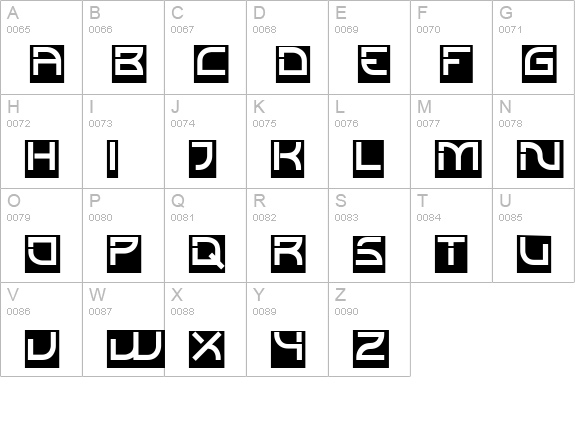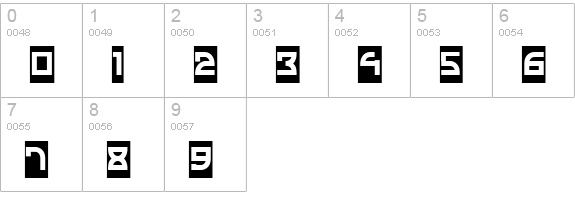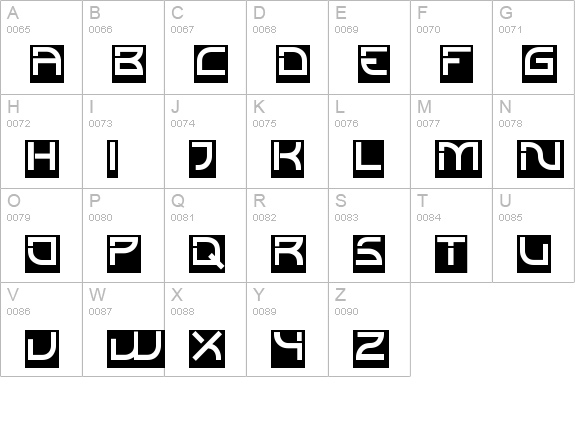
Individigital Subtitle Font Details
Individigital Subtitle, a stunning font designed to make your subtitles stand out with its modern and sleek appearance. This font is perfect for adding a touch of sophistication and professionalism to your projects. Whether you are creating subtitles for a film or video, or designing promotional materials, Individigital Subtitle is the ideal choice. This font features clean and sharp lines, ensuring maximum legibility even at smaller sizes. The balanced letterforms and generous spacing allow for easy reading, guaranteeing that your message will be conveyed with clarity. Individigital Subtitle's contemporary design adds a touch of elegance to any project, making it suitable for a wide range of applications. What sets Individigital Subtitle apart is not just its exceptional design, but also the fact that it is free. That's right, you can download this remarkable font for no cost at all. Simply head over to FontsMarket.com and get your hands on this fantastic typeface without spending a dime. Individigital Subtitle is a font that combines style and practicality, making it a valuable asset for any designer or content creator. Its versatility allows it to be used in various contexts, from digital platforms to print materials. With Individigital Subtitle, you can effortlessly add a touch of professionalism and sophistication to your projects, all while enjoying the convenience of a free download. Don't miss out on the opportunity to enhance your designs with this exceptional font. Download Individigital Subtitle today and take your subtitles to a whole new level. Experience the power of a high-quality font that is freely available to you at FontsMarket.com.